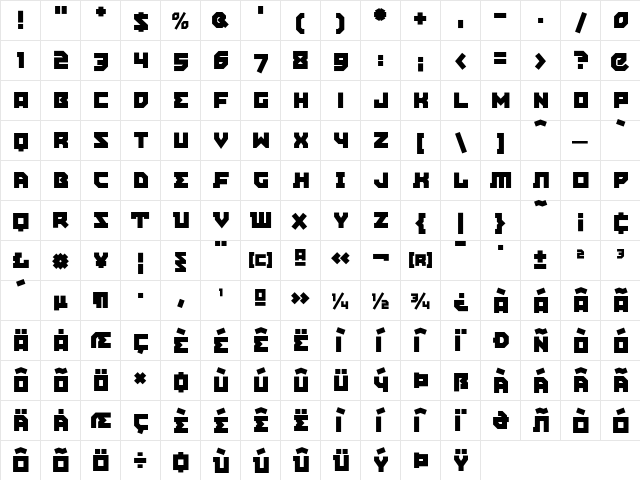
EastBlocICG Closed
Design Context for EastBlocICG Typeface
EastBlocICG is a composed and adaptable typeface that performs quietly and consistently across a wide range of design contexts.